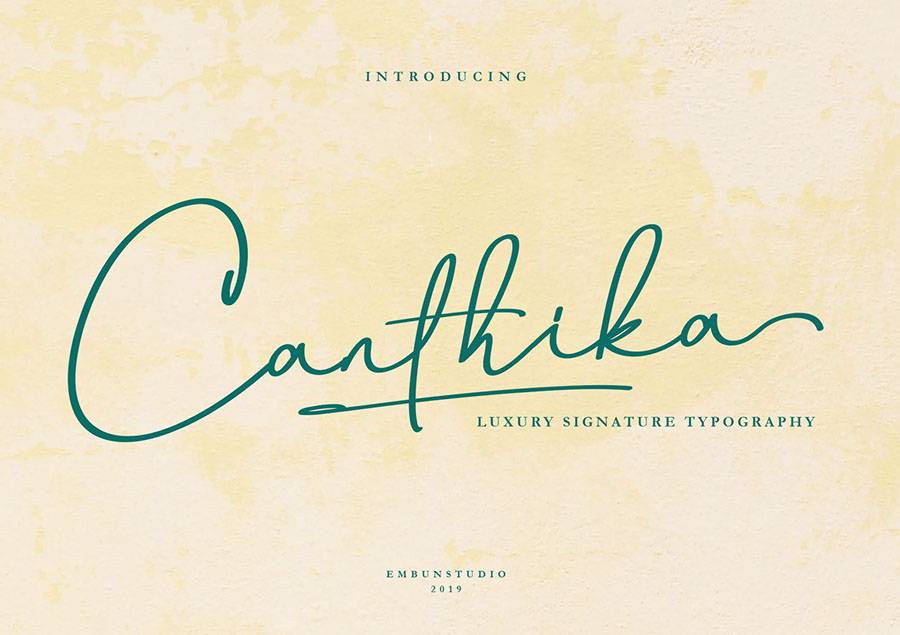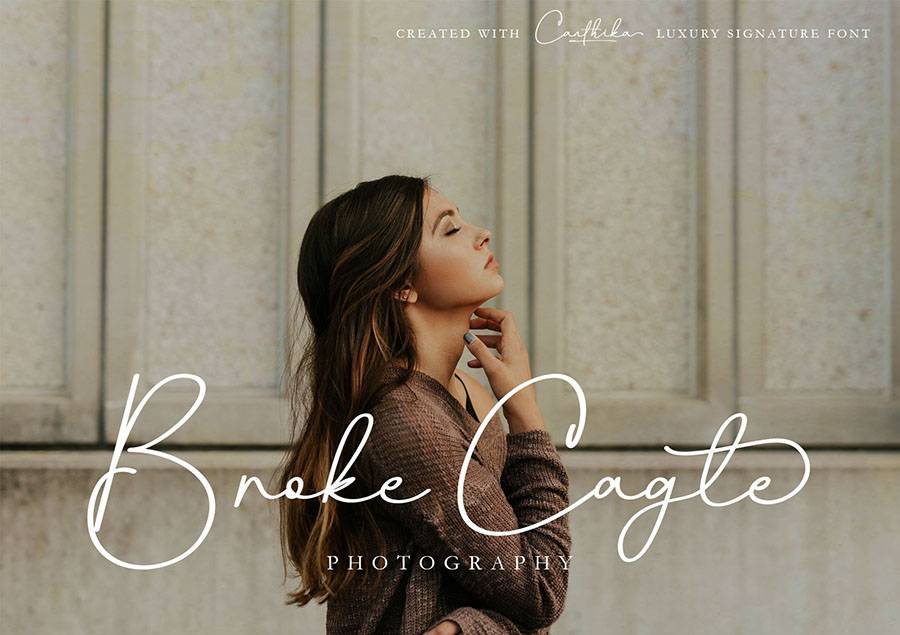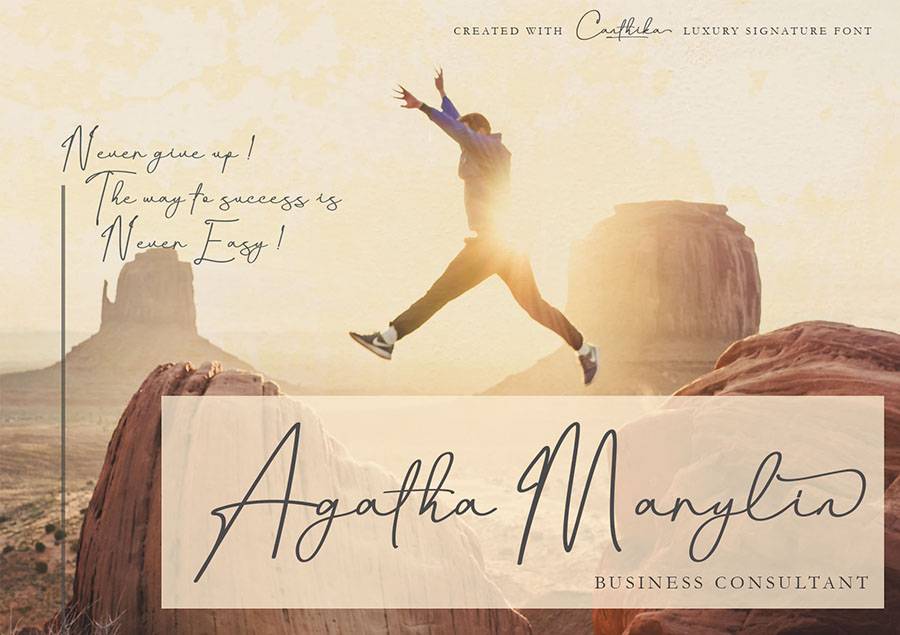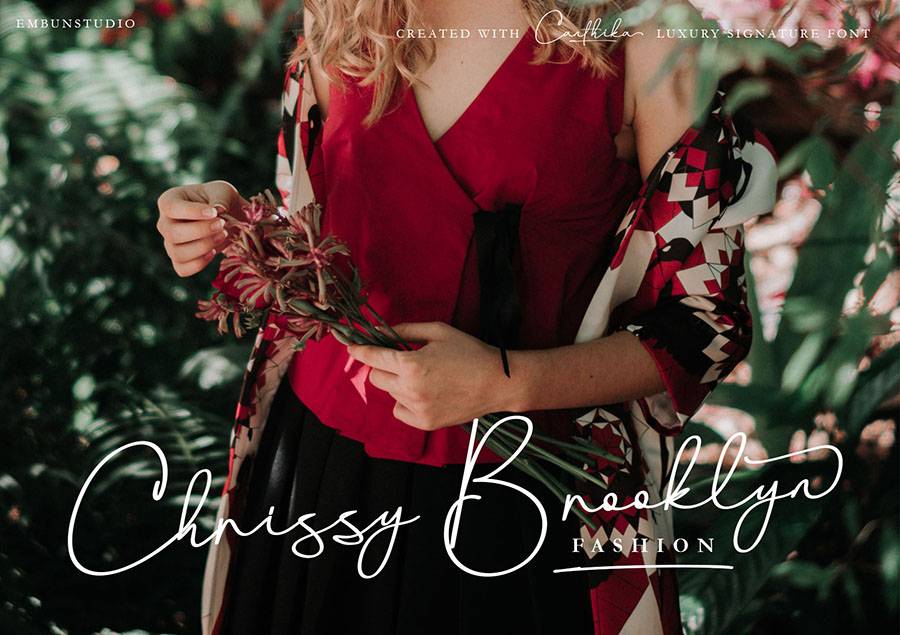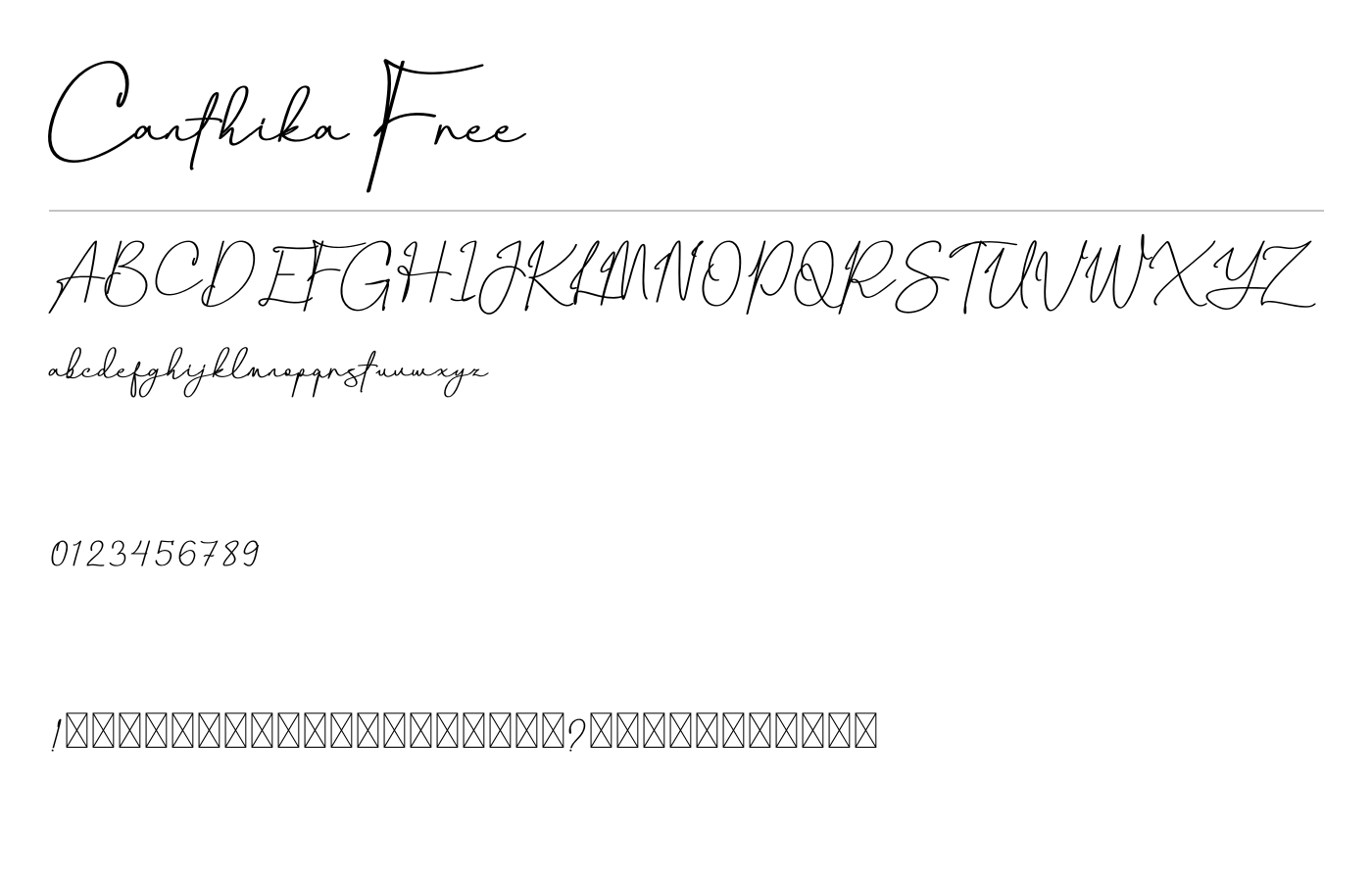
Canthika Stylish Signature Font
Canthika Stylish Signature Font is Stylish Signature Font with Handwriting Style but in luxury feel, perfect for your every project such as logo, social media posts, advertisements, product packaging, product designs, label, photography, watermark, invitation, stationery and any projects that need luxury touch.